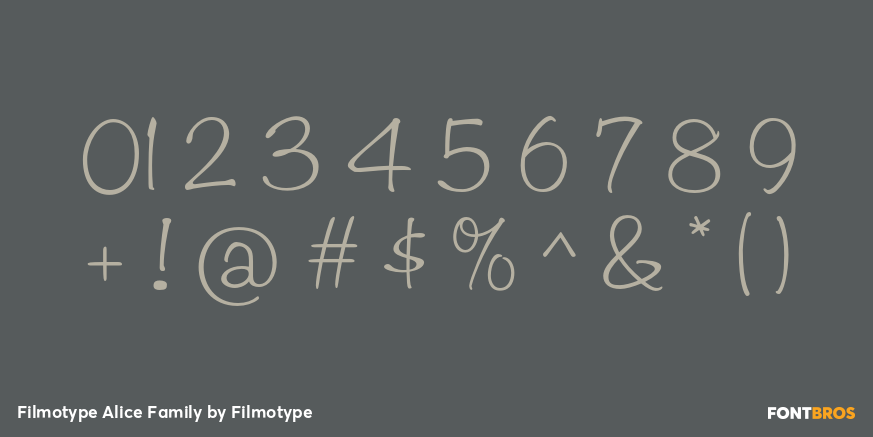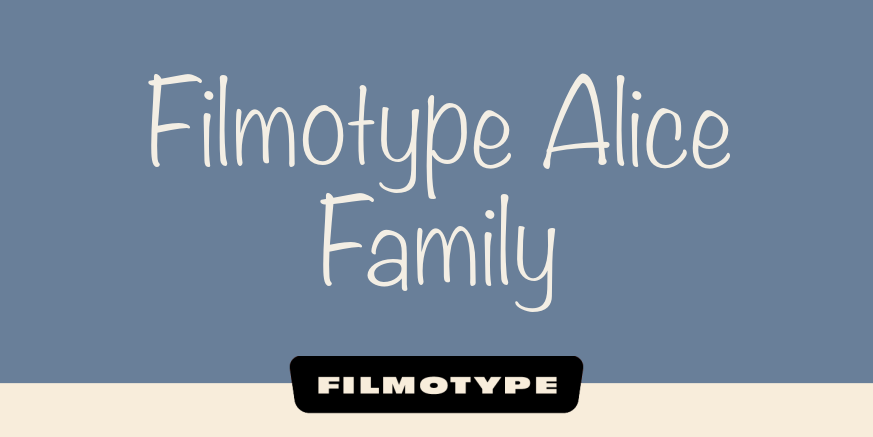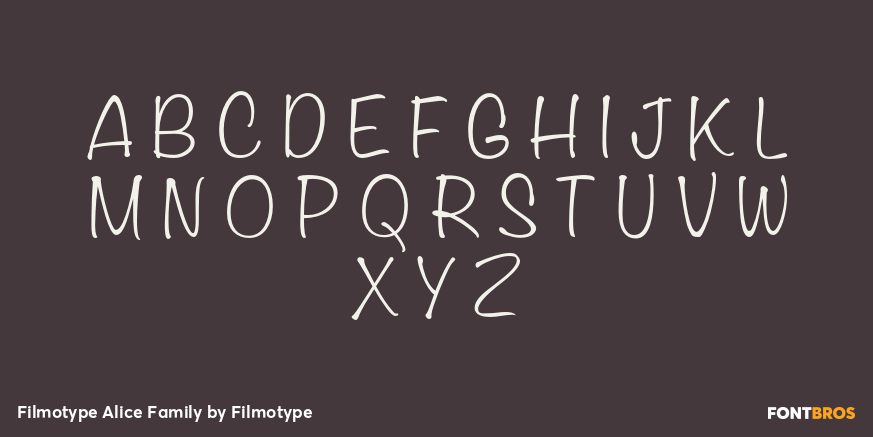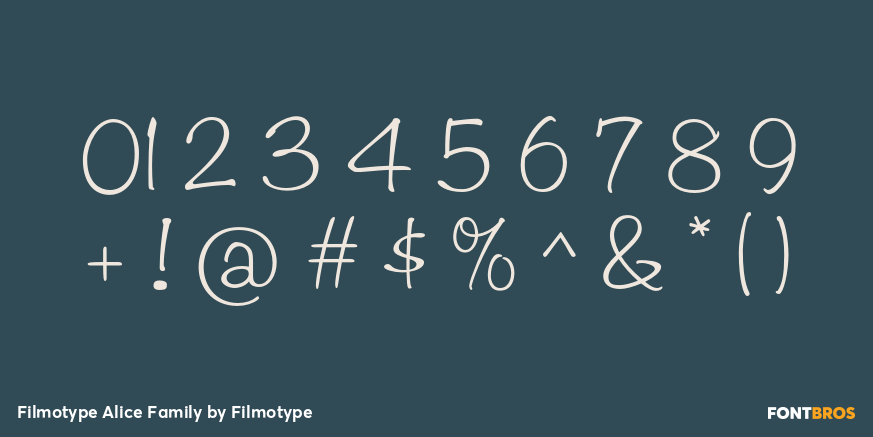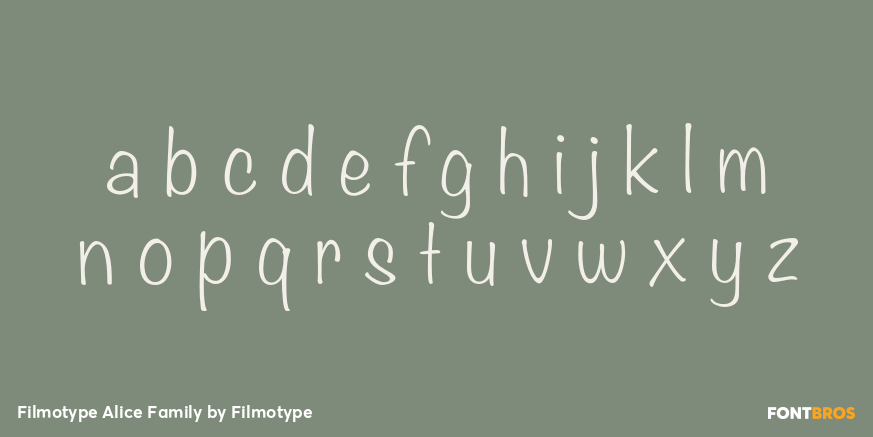
Filmotype Alice Family
Filmotype Alice marks the beginnings of the casual handwritten script aesthetic. Introduced by Filmotype in the late 1950s, it perfectly captures the mid-century playfulness of hand lettering while providing comfortable readability.
Filmotype Brooklyn picks off where her younger sister Filmotype Alice left off. Without the ability to embolden type photographically using its machine, Filmotype Introduced a customer requested bold weight of Filmotype Alice in the late 1950s.
Each font was traced from scratch using the original font filmstrips and includes a full international character compliment, automatic fractionals, ordinals, and a host of alternate characters in dynamic OpenType format.